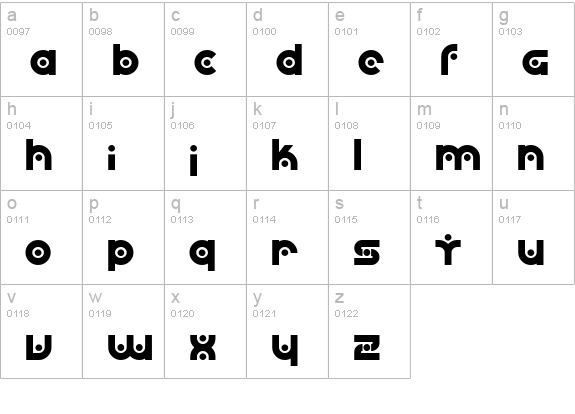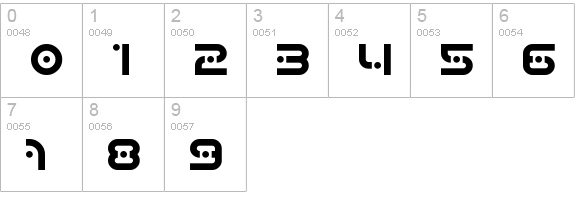
SF Planetary Orbiter Bold Font Details
SF Planetary Orbiter Bold is a strong, high-contrast variant in the SF typeface family \xE2\x80\x94 well suited to headlines, attention-grabbing titles, and strong calls-to-action.
Introducing SF Planetary Orbiter Bold, a captivating font that will take your designs to new dimensions. This bold and dynamic typeface is perfect for those seeking a futuristic, sci-fi aesthetic that truly stands out. With its sleek and sleek lines, SF Planetary Orbiter Bold commands attention and exudes a sense of confidence and modernity. Designed with versatility in mind, SF Planetary Orbiter Bold is suitable for a wide range of creative projects, from movie posters and book covers to website headers and logo designs. Its unique letterforms and distinctive curves give your text a sense of movement and intrigue, making it an ideal choice for capturing the essence of space exploration, intergalactic adventures, and technological advancements. But what truly sets SF Planetary Orbiter Bold apart is its accessibility. This incredible font is freely available to download at FontsMarket.com, allowing designers and enthusiasts alike to unleash their creativity without any constraints. Whether you're a professional graphic designer or an aspiring creator, SF Planetary Orbiter Bold empowers you to bring your vision to life with ease. So, why settle for ordinary when you can elevate your designs with SF Planetary Orbiter Bold? Add a touch of futuristic flair and captivate your audience with this remarkable typeface. Download SF Planetary Orbiter Bold for free at FontsMarket.com and embark on a journey of endless possibilities in the realm of typography.